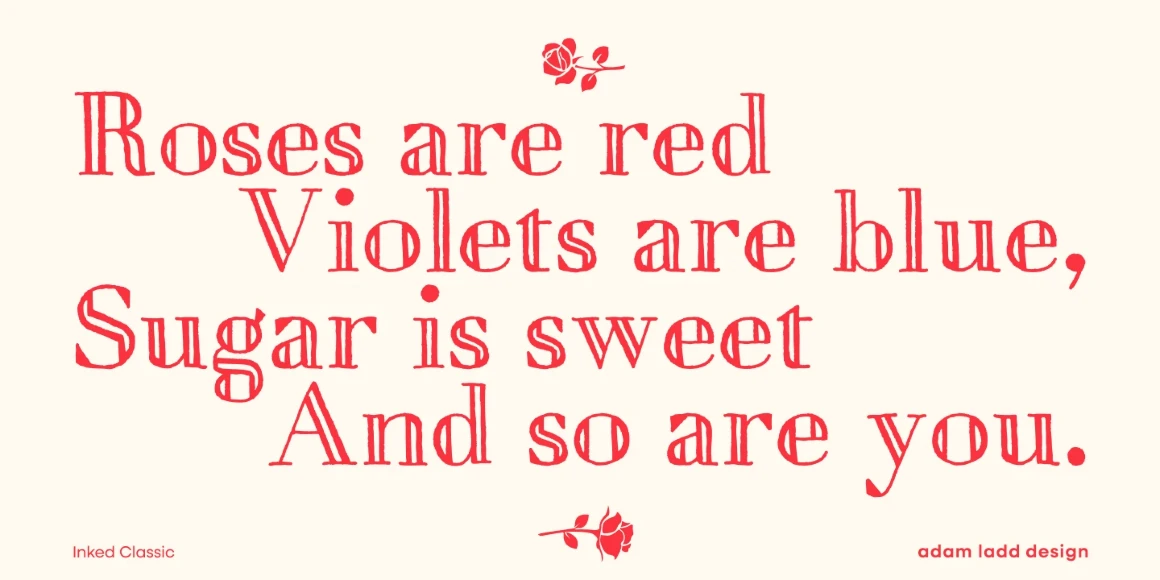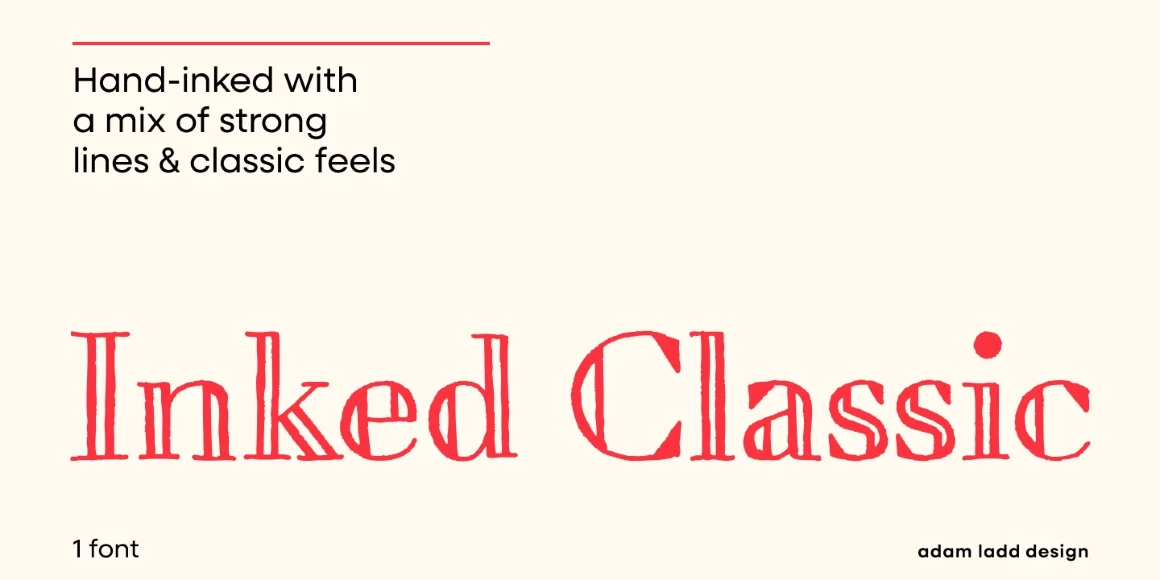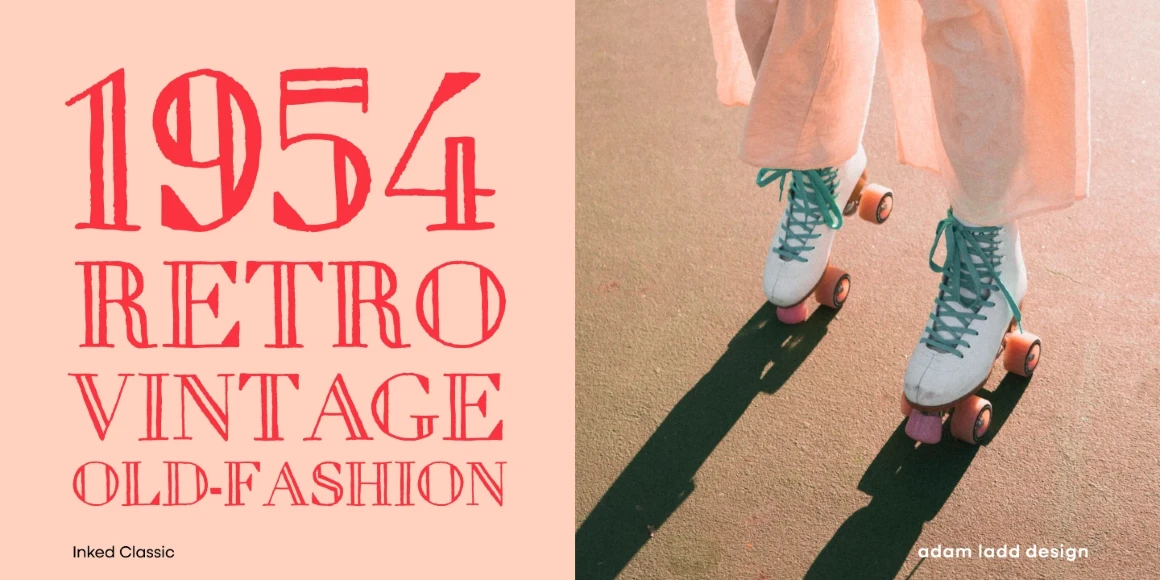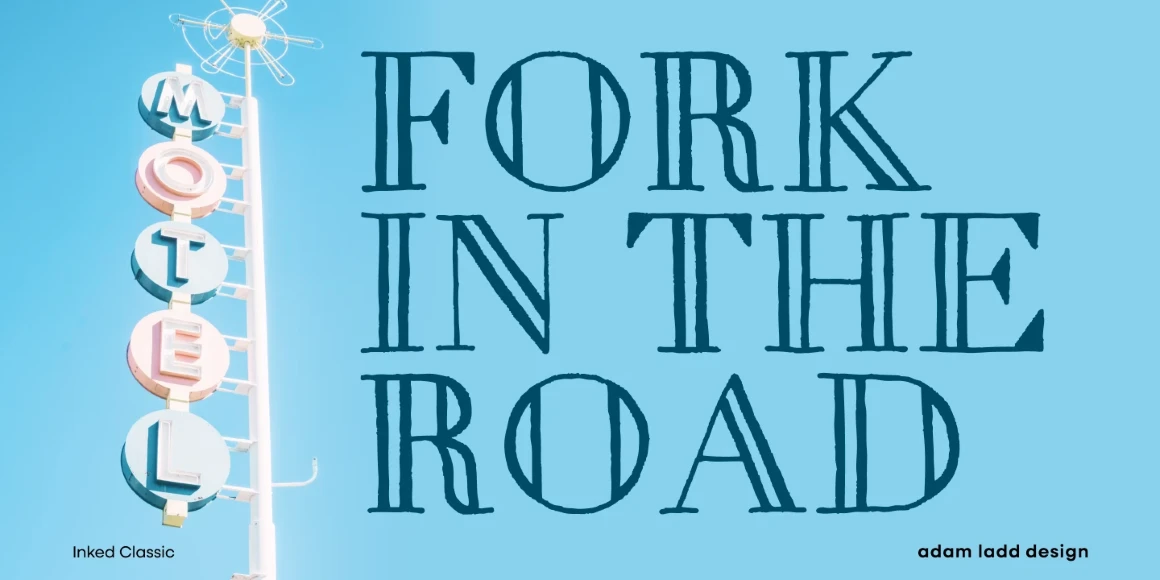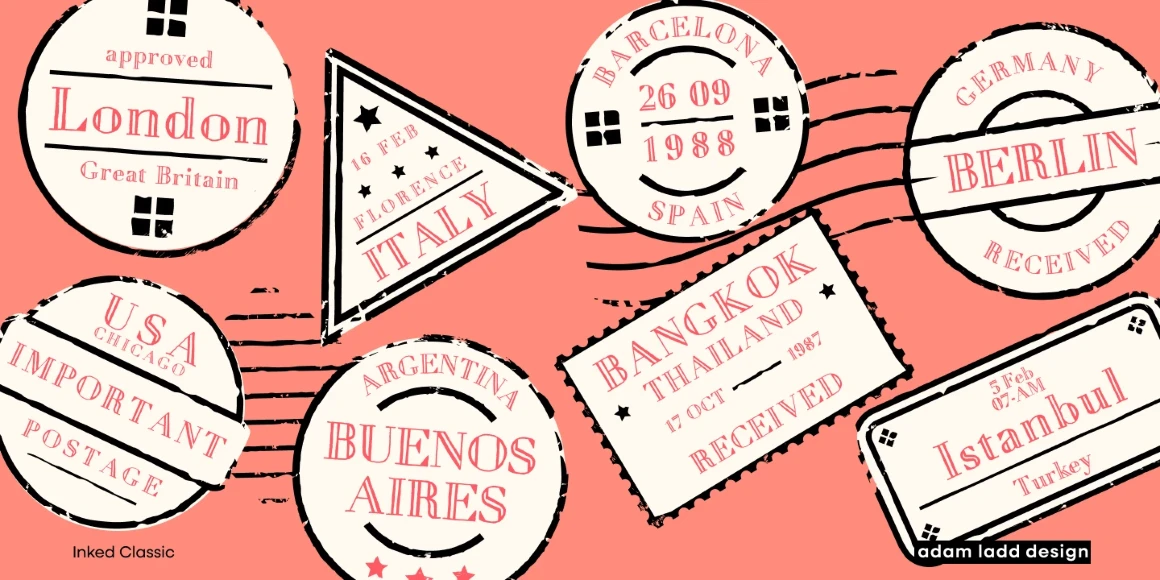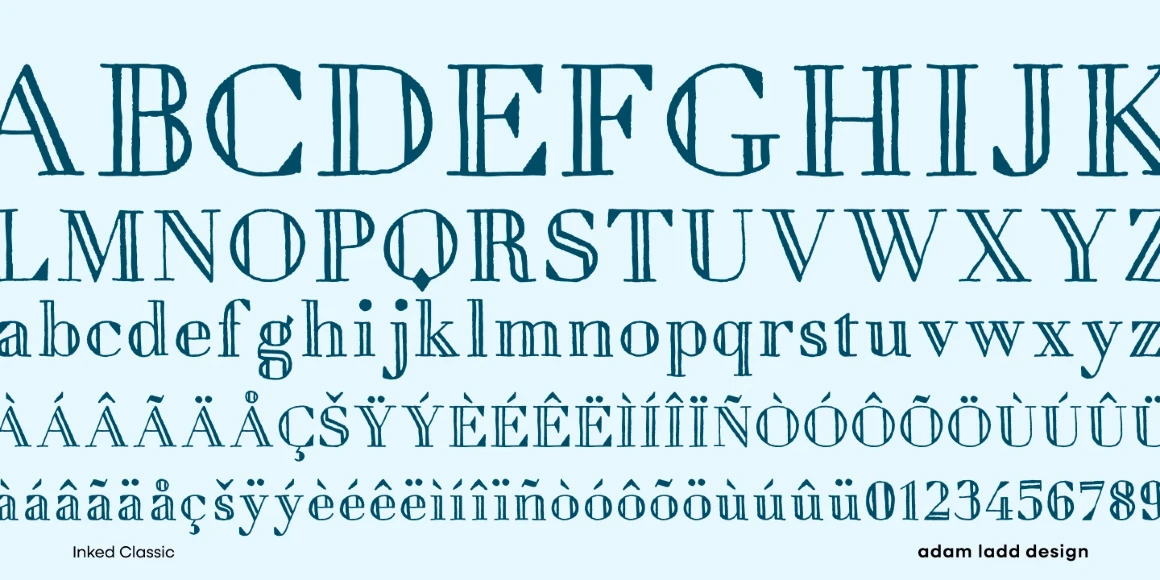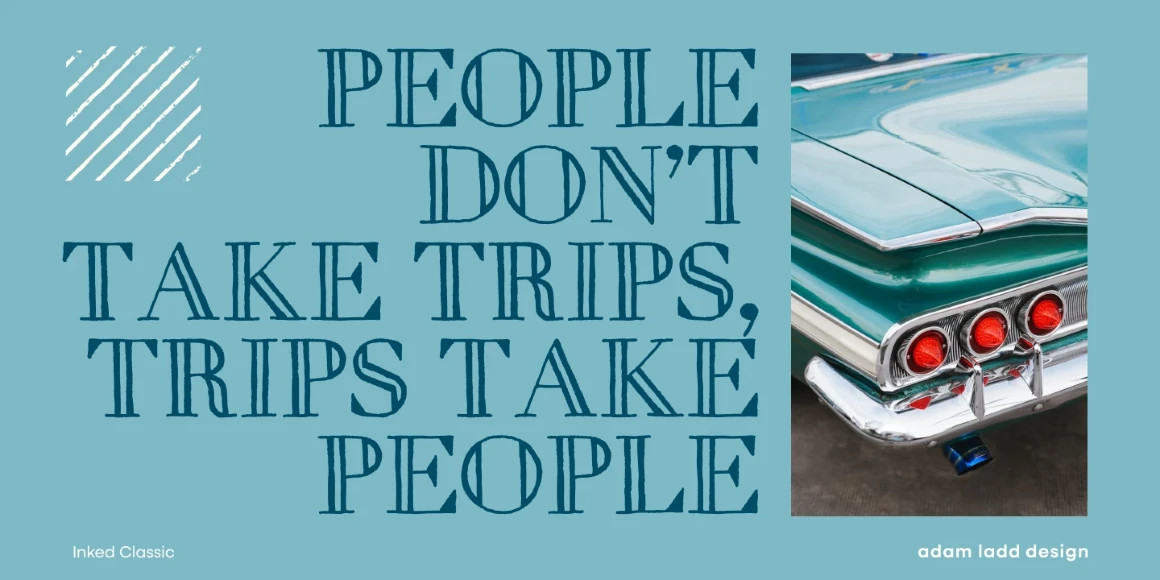
Inked Classic
By Adam Ladd
Inked Classic Regular
Combining the dignity of a modern openface Didone with hand-drawn charm, Inked Classic evokes nostalgic elegance. It lends warmth to typographic circumstances requiring more than cold perfection. The design ensures legibility when used in small sizes, such as wine labels or party invitations. But the harmonious interplay of elements is undeniably present at display sizes, such as on book covers or magazine spreads. Select Inked Classic to infuse your next project with an air of bygone appeal.